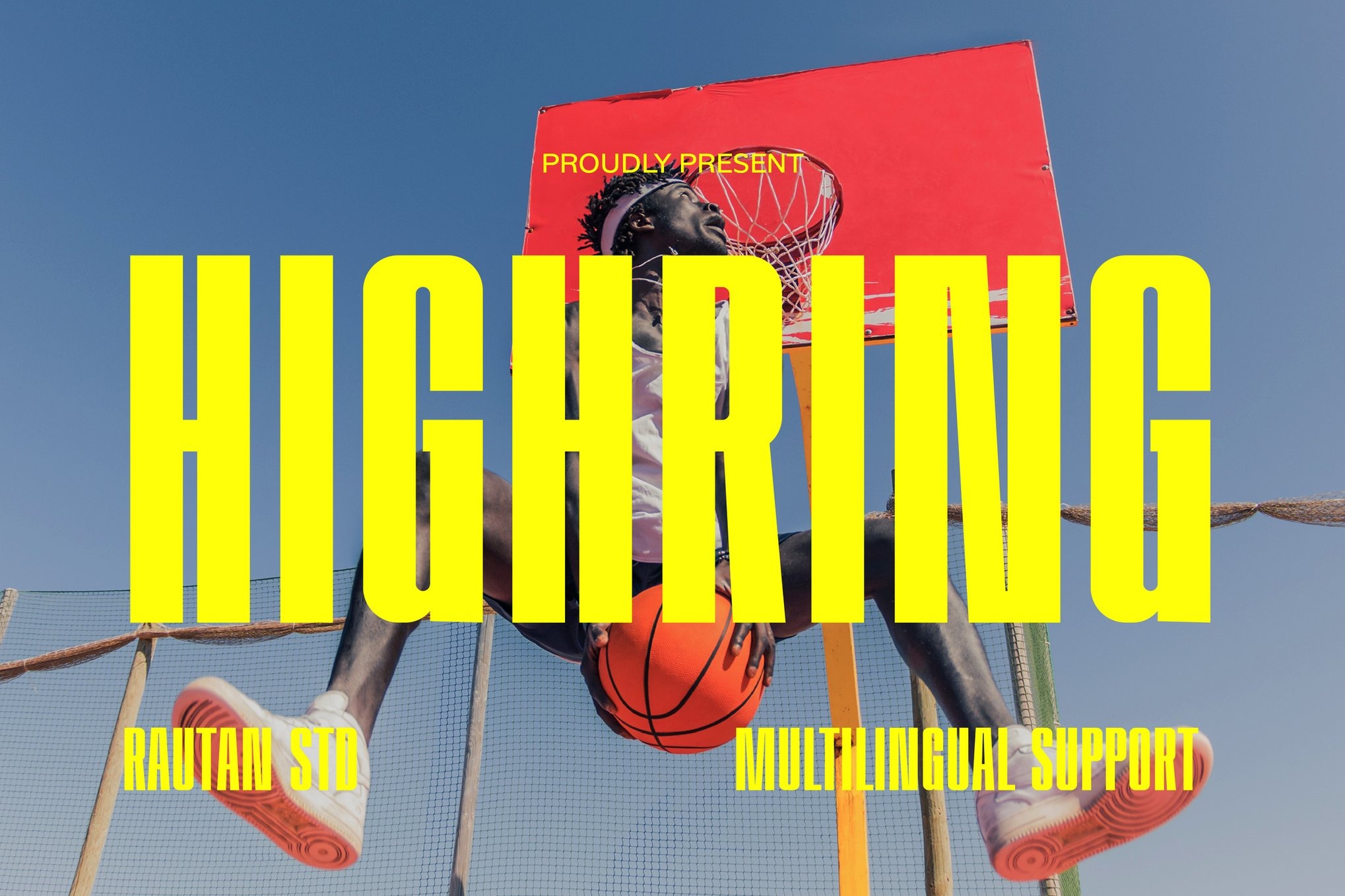
Highring – Condensed Sans Serif Font
Highring – Condensed Sans Serif Font is a bold athletic display font designed for sports branding, dynamic campaigns, and modern visual identities. Featuring tall condensed proportions, sharp angled cuts, and clean geometric construction, it delivers a fast-moving personality that naturally commands attention. Its powerful structure keeps headlines clear and impactful, making it an excellent choice for sports promotions, esports graphics, fitness campaigns, event branding, advertising, and energetic social media content.
Supporting 67 multilingual languages, HIGHRING helps brands communicate consistently across international audiences while maintaining a confident and contemporary visual presence.
Every sports campaign deserves typography that feels as energetic as the message itself. HIGHRING transforms ordinary headlines into bold visual statements, helping designers create posters, fitness promotions, esports graphics, sports events, product launches, social media campaigns, and digital advertisements that instantly capture attention and reinforce a strong, competitive identity.
Key Features :
Bold Athletic Style Tall condensed letterforms create headlines with strong visual impact.
Fast & Dynamic Look Sharp geometric shapes communicate speed, movement, and performance.
Built for Big Headlines Perfect for posters, sports branding, advertising, and promotional graphics.
67-Language Support Reach international audiences with extensive multilingual characters.